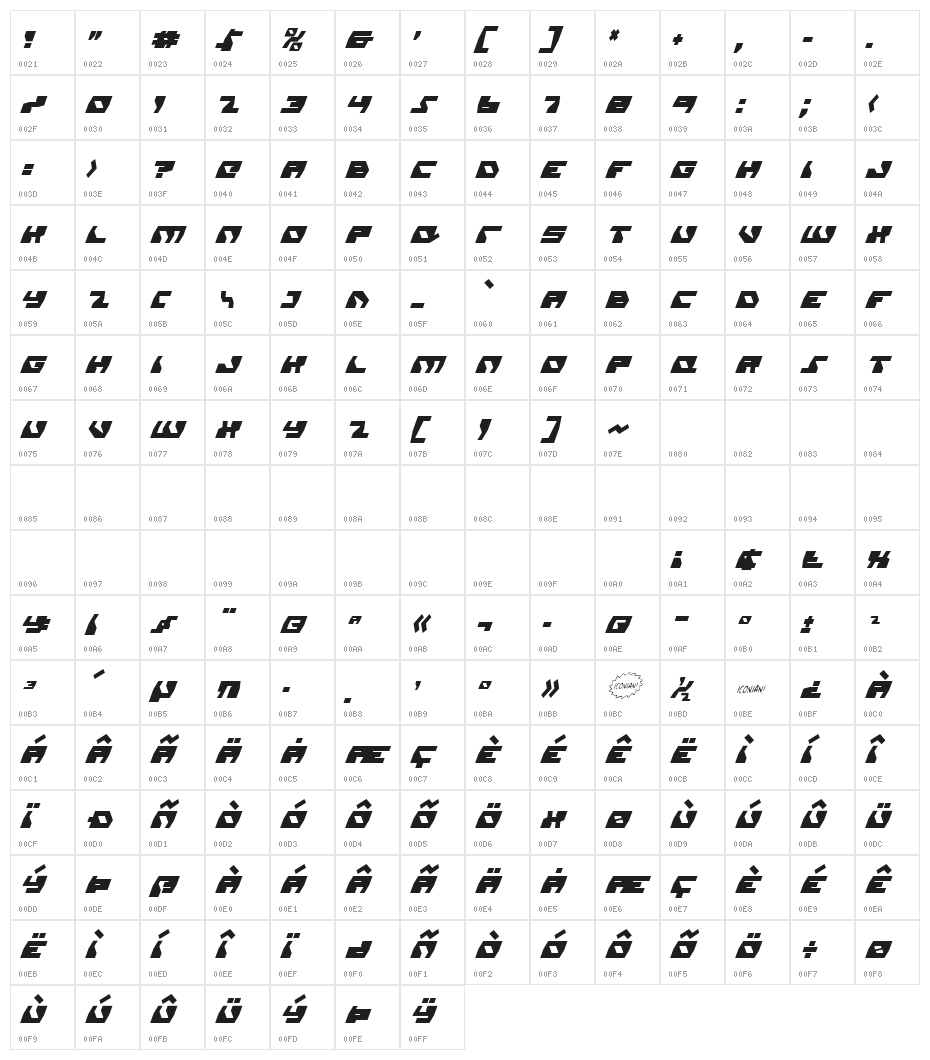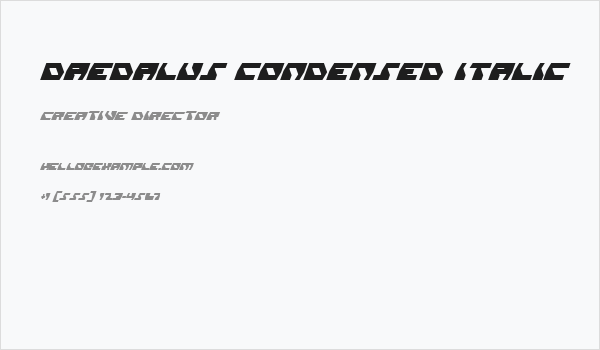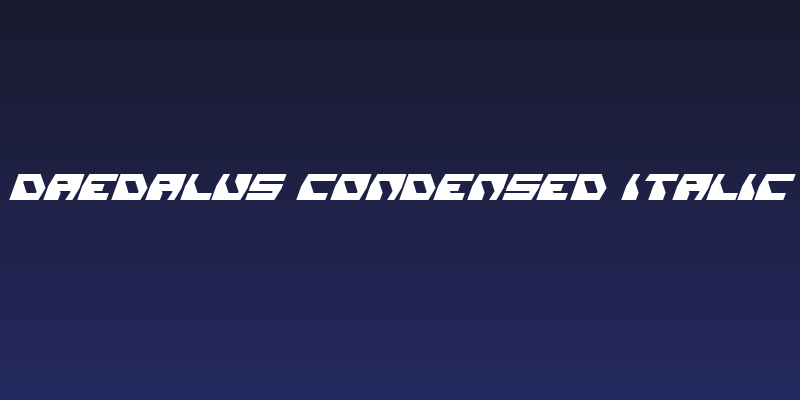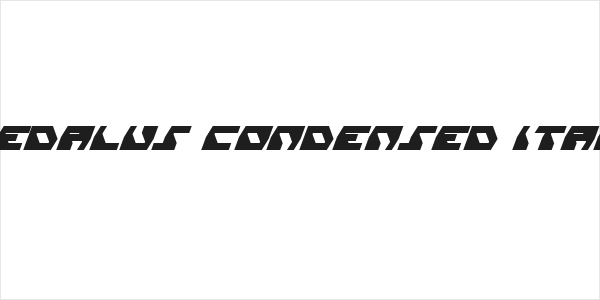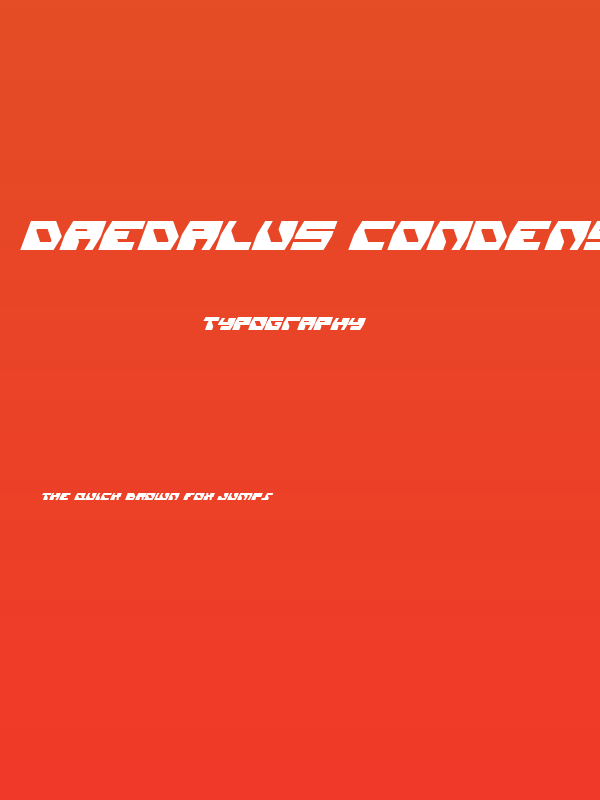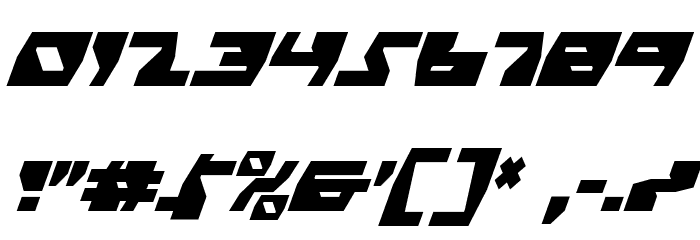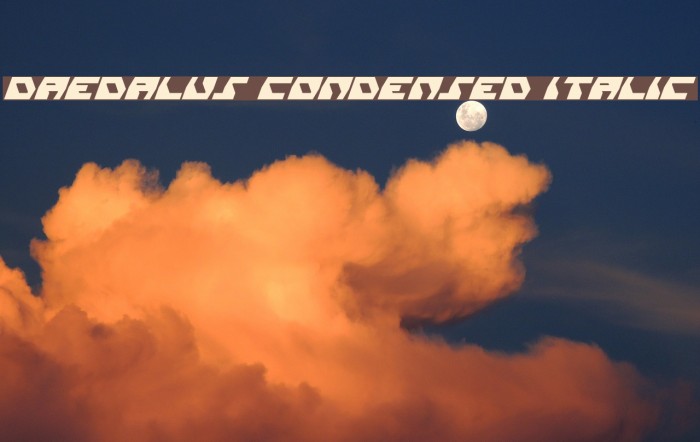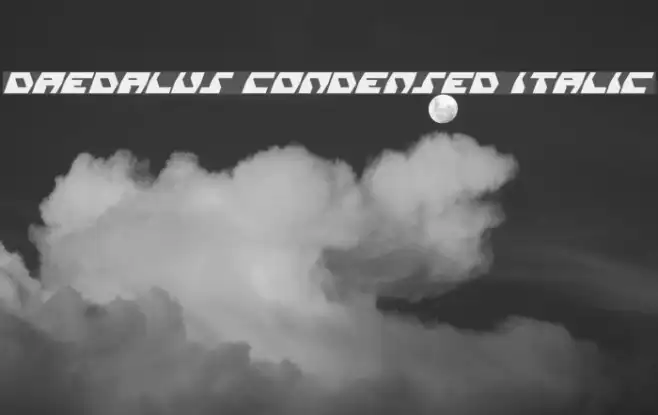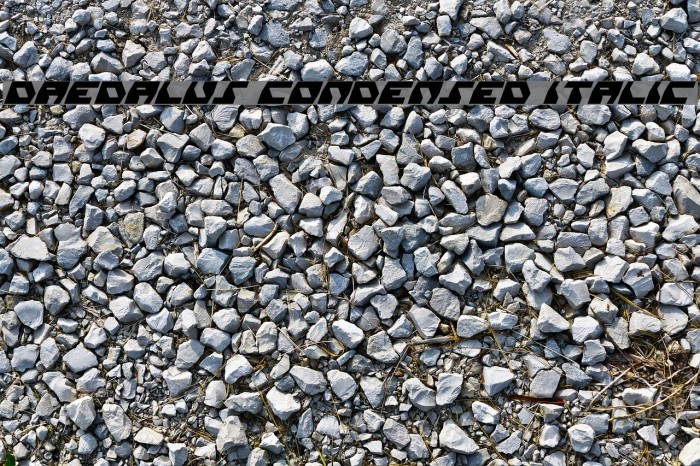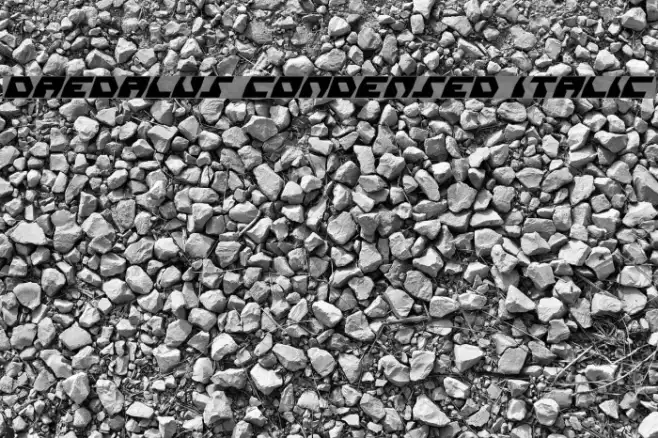
Daedalus Condensed Italic Font
Daedalus Condensed Italic Description
This font features a bold, angular design with a futuristic and dynamic appearance. The characters are sharply cut with a condensed width, giving it a compact and efficient look. The italic slant adds a sense of motion and speed, making it ideal for projects that require a modern and edgy feel. The high contrast between the thick and thin strokes enhances its boldness, while the tight character spacing contributes to its condensed nature. This font is particularly suitable for headlines, logos, and any design that aims to capture attention with a strong visual impact.
| Overall Style | Futuristic |
| Proposed Projects | Ideal for futuristic branding, tech-related designs, sports team logos, and dynamic advertising campaigns. |